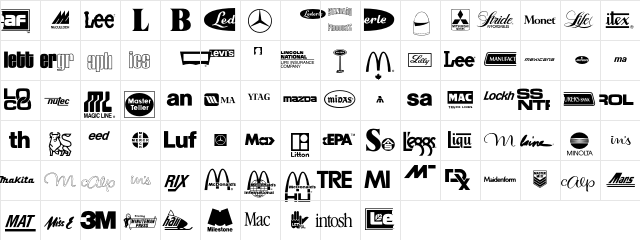
LogosCompany P11
Style: P11
LogosCompany Family
LogosCompany P11
Design Context for LogosCompany
LogosCompany is a composed and adaptable typeface that performs quietly and consistently across a wide range of design contexts.